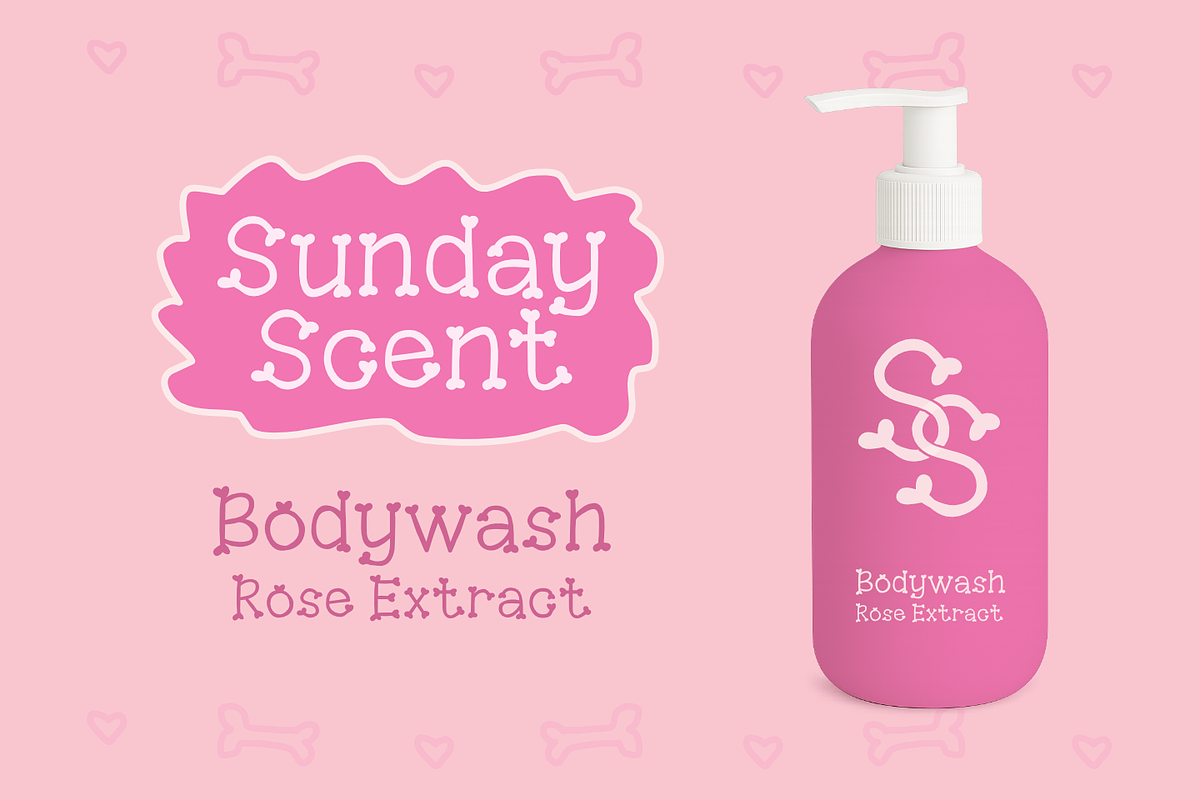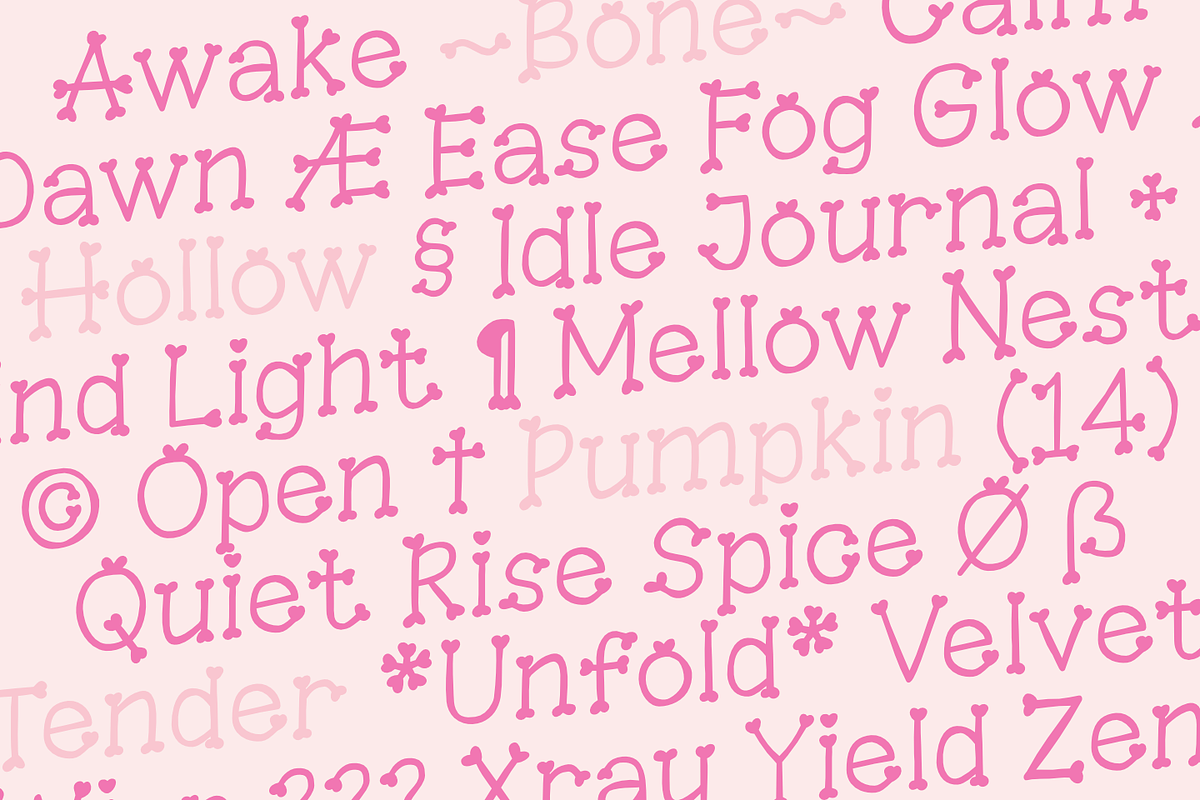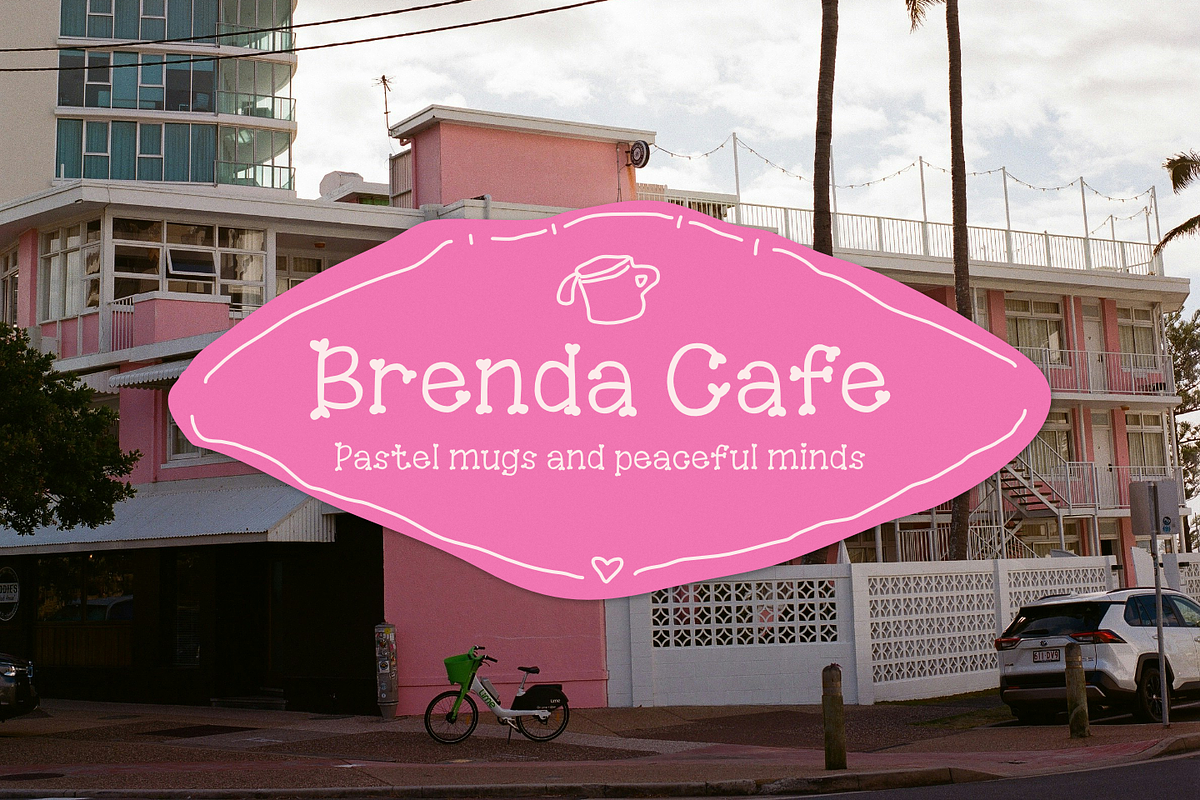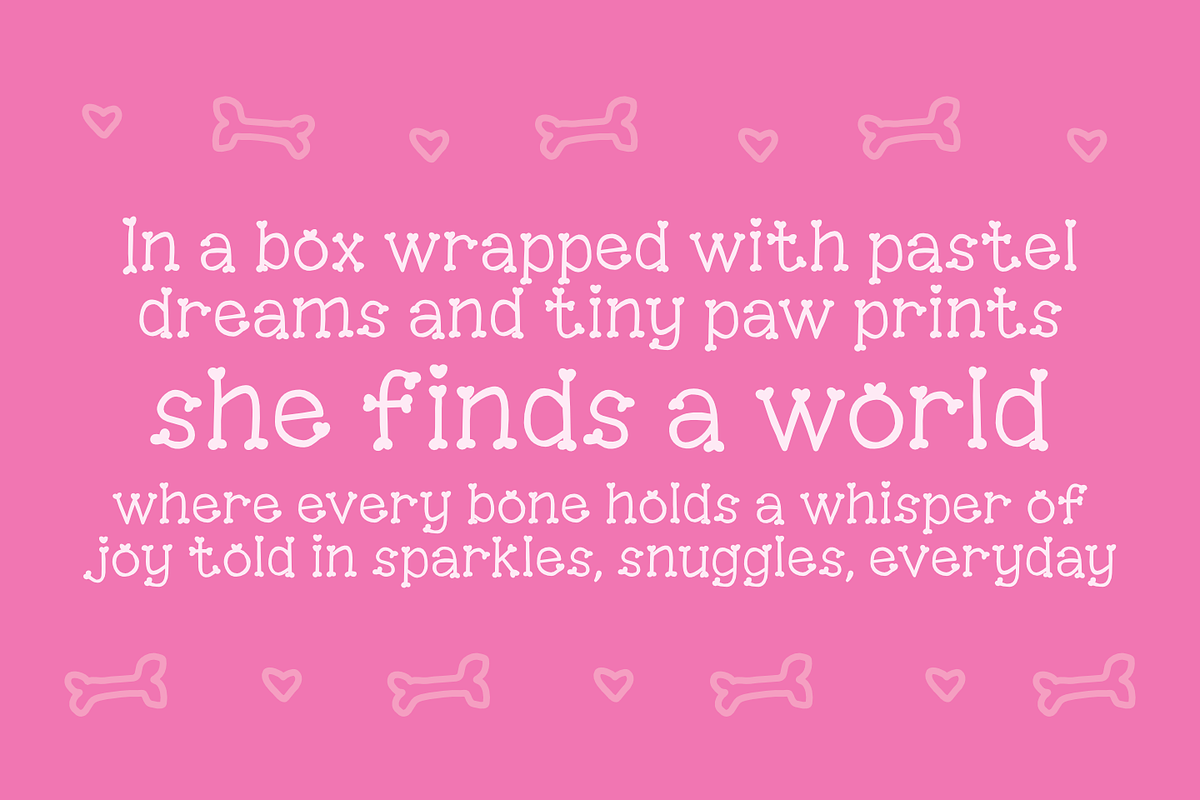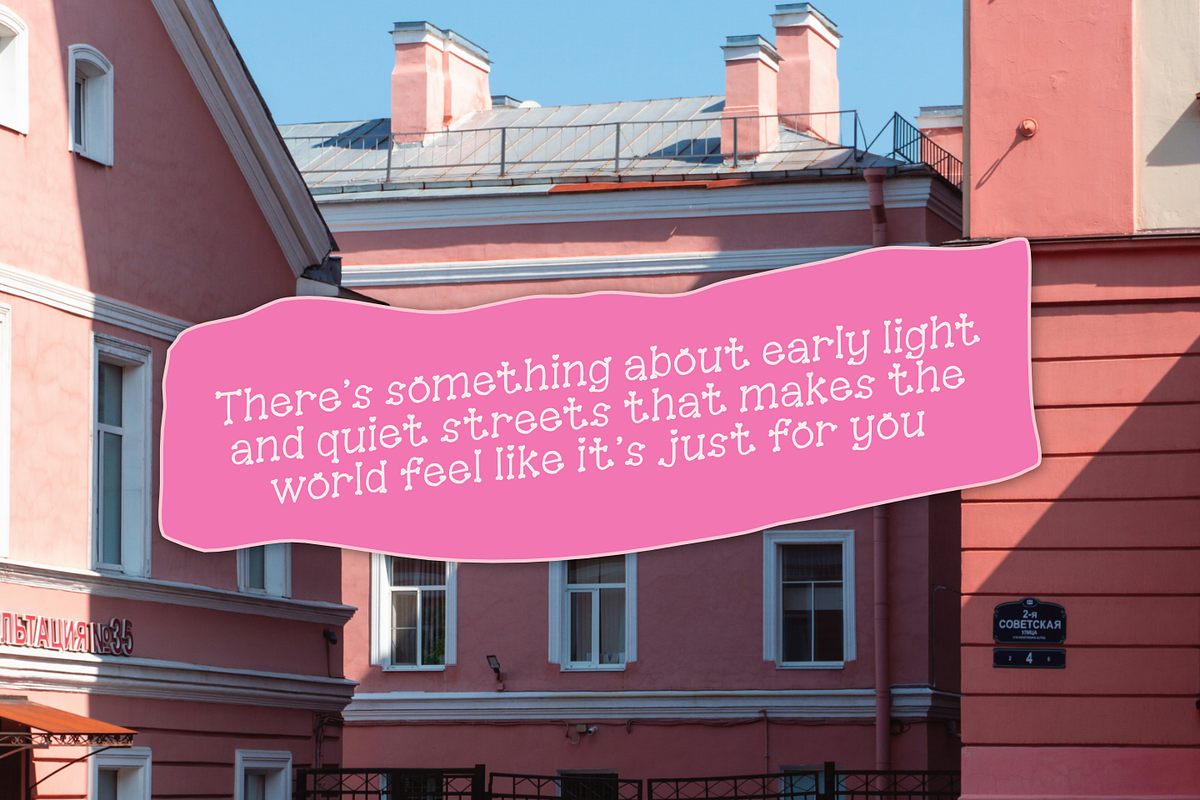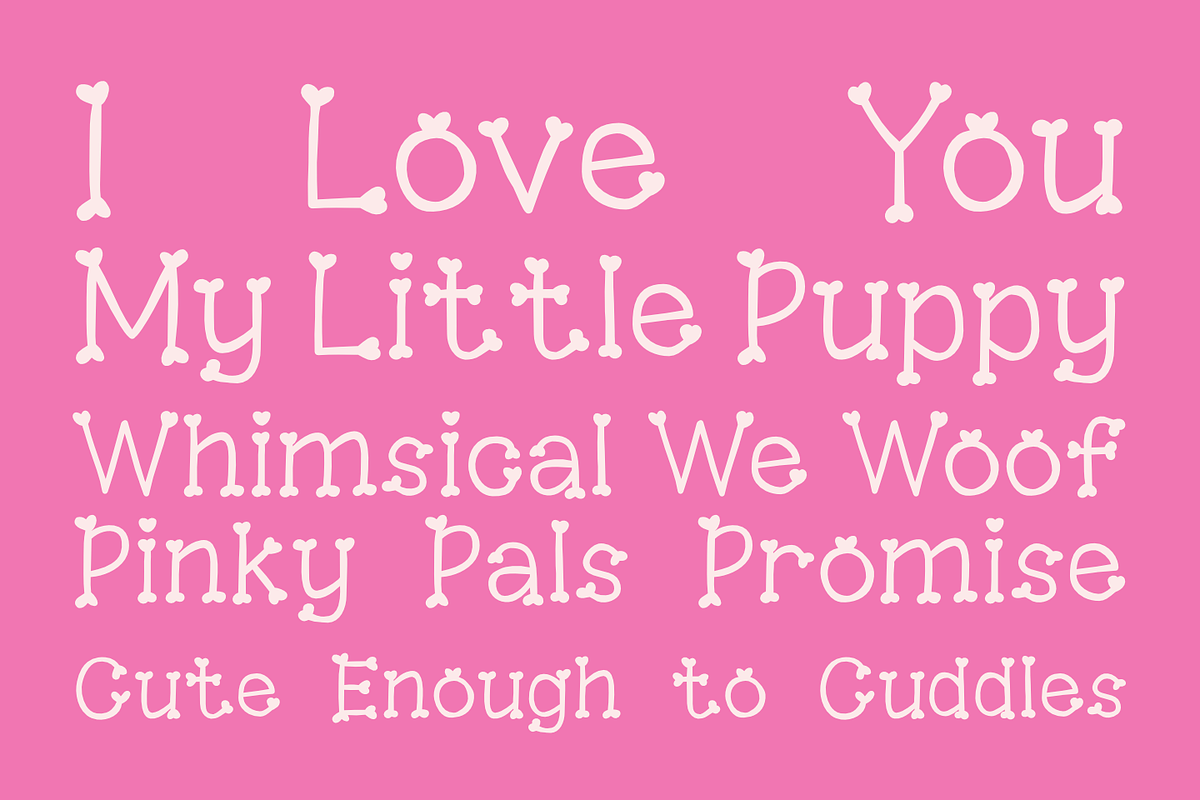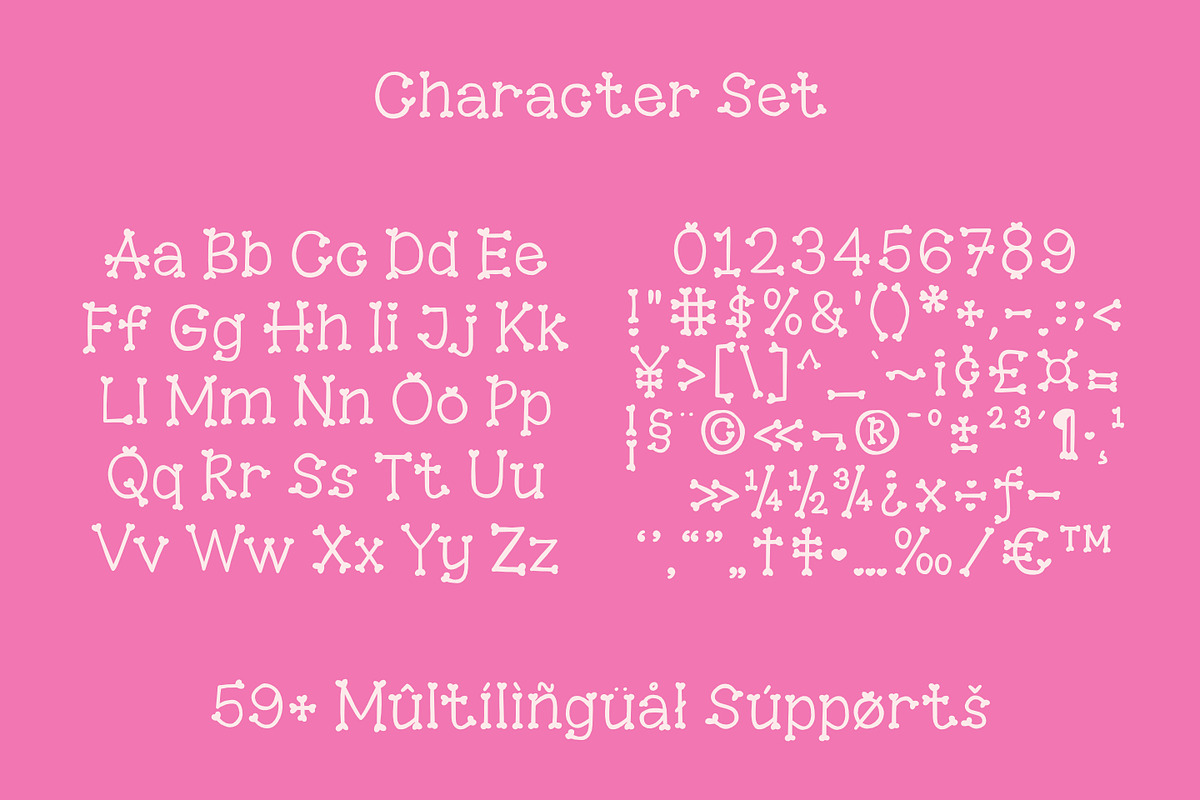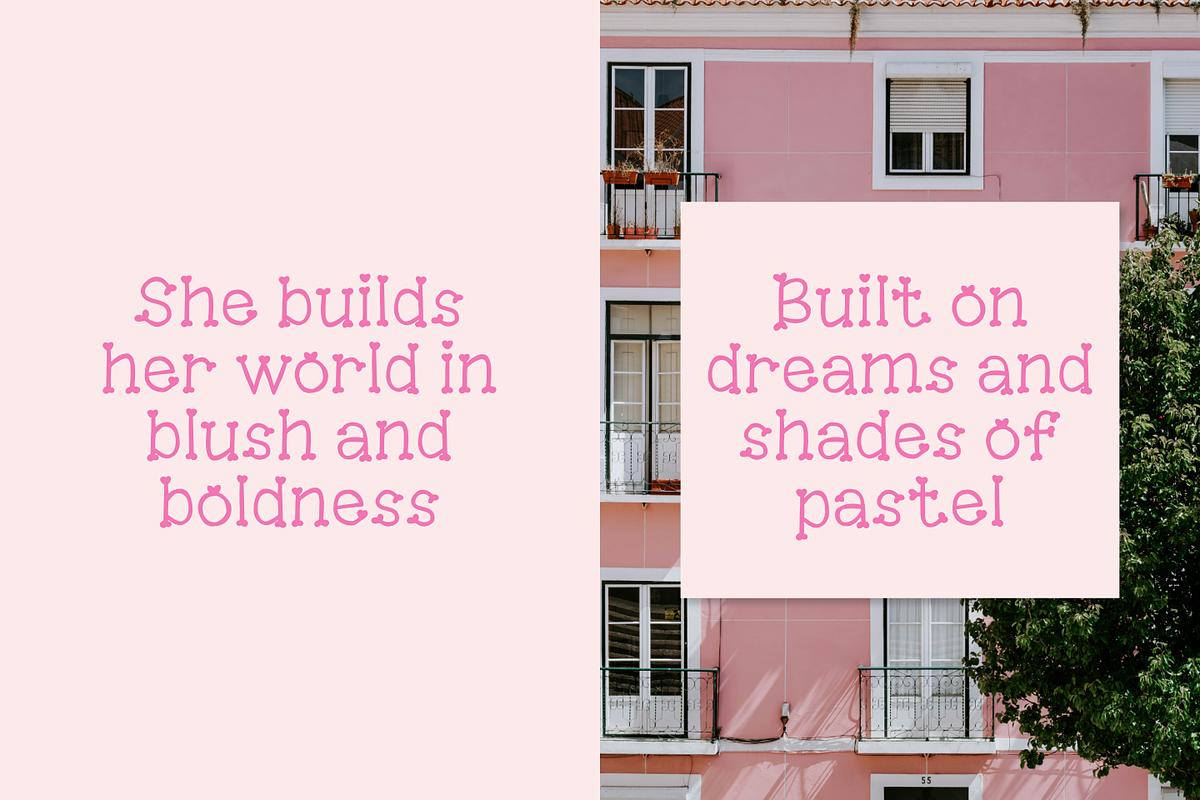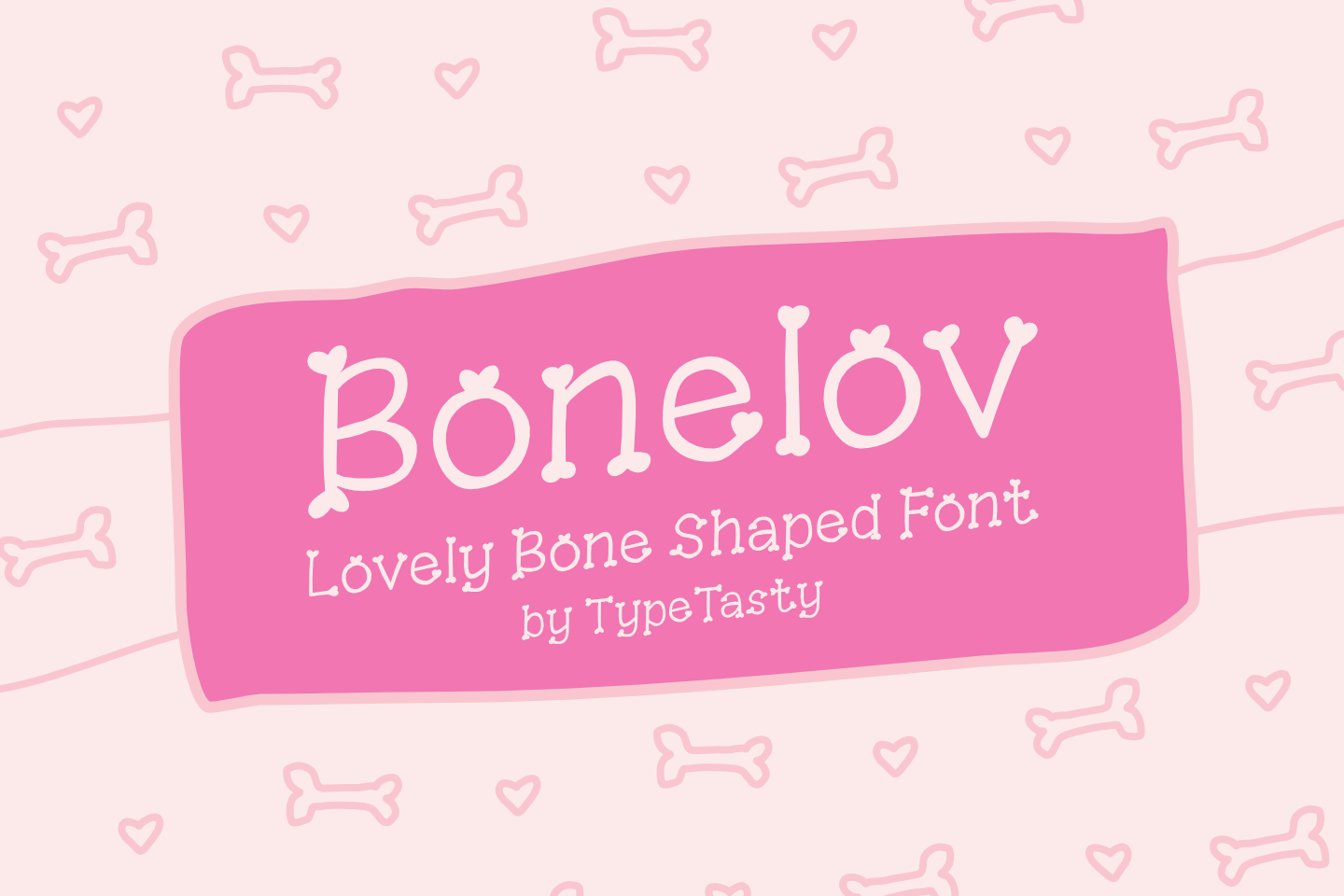
Bonelov – Lovely Bone Shaped Font
Bonelov is a playful bone-shaped decorative font designed to bring fun, cuteness, and creativity to your projects. Perfect for pet branding, children’s storybooks, playful packaging, Instagram posts, event posters, and DIY crafts, this font delivers a unique and whimsical vibe that instantly stands out. With handcrafted letterforms and bone-inspired serifs, Bonelov is the ideal choice for designers, marketers, and creatives who want to add joyful personality and charm to their work.
Font Style & Vibe
Bonelov is a playful and adorable decorative font inspired by bone shapes, designed to spread joy and fun in every letter. With its quirky curves and bone-tipped serifs, it brings a lighthearted and loving energy perfect for pet, kids, and lifestyle projects.
Market Vibe
Perfectly suited for Instagram posts, children’s storybooks, dog-themed branding, playful packaging, and event posters, Bonelov blends charm and friendliness that speaks to both young and young-at-heart audiences.
Letterform Structure
Decorative serif with bone-inspired tips
Whimsical and handcrafted letterforms
Balanced spacing for readability without losing personality
Best Use Cases
Pet branding & product packaging (treats, toys, accessories)
Kids’ book titles & story illustrations
Social media posts & Instagram quotes
Event posters & playful banners
DIY crafts, greeting cards, and merchandise
Looking for a font that instantly sparks joy and cuteness in your design? Bonelov is the ultimate bone-shaped font that transforms ordinary text into playful, pet-loving, and kid-friendly visuals. Whether you’re branding a pet shop, designing packaging, or crafting social media posts, Bonelov makes your message irresistibly fun and memorable.
🐾 Playful & Unique Design Every letter is crafted with bone-shaped details, making it perfect for pet brands, kids’ products, and fun campaigns.
🎨 Versatile Use From branding to packaging, posters to Instagram, Bonelov adapts effortlessly while maintaining its whimsical identity.
💡 Creative Boost Turn ordinary text into a delightful storytelling element that captures attention instantly.